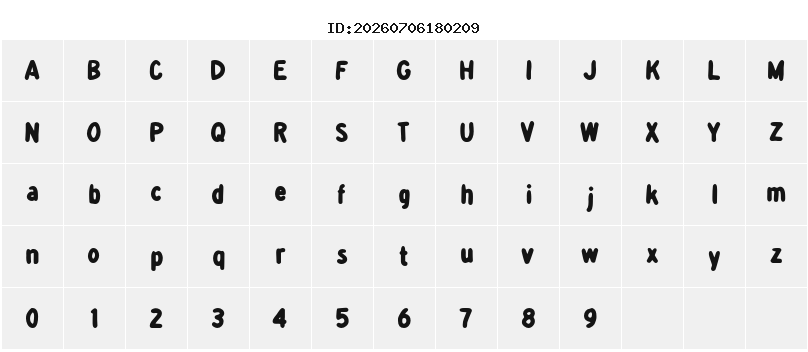
detourDork Preview
• Font Name: detourDork
• Font ID: Macromedia Fontographer 4.1 detourDork
• Full Font Name: DetourDork
• Version: Macromedia Fontographer 4.1 14-05-2002
• PostScript Name: DetourDork
• Character Count: 65
• Designer: J O E B O B graphics
• Manufacturer: J O E B O B graphics
About detourDork.otf
detourDork.otf is a modern, elegant sans-serif font designed for ultimate readability and visual harmony. Perfect for branding, headlines, web design, and print materials.